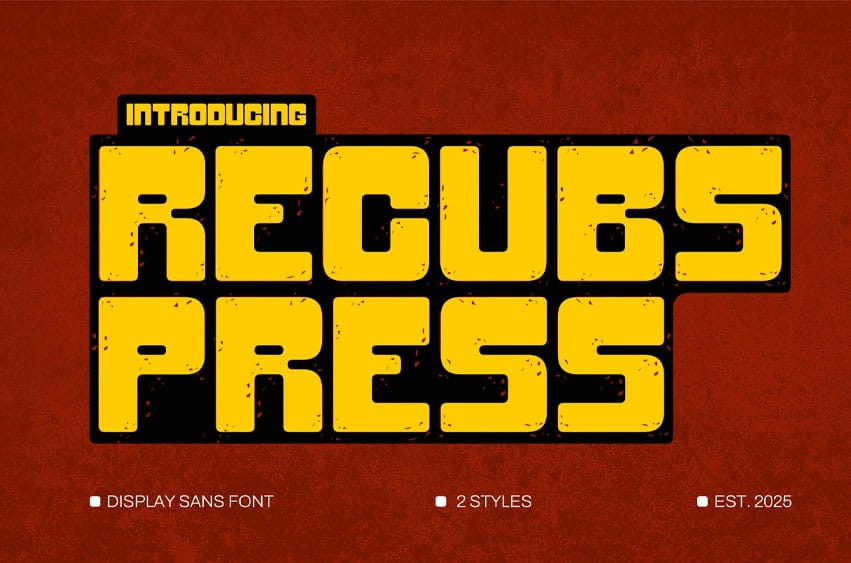
Recubs Press Font Every character in Recubs Press is founded on robust geometric structures, featuring squared terminals and consistent stroke widths that ensure legibility at any size. The Regular style balances a friendly mid-weight presence with gentle distressing, evoking the charm of handcrafted prints without compromising clarity. Block amplifies the grit and weight, imposing a bold statement perfect for logos, posters, and large-scale display.
Recubs Press excels across diverse applications, from vintage-inspired packaging and artisanal branding to modern editorial layouts and eye-catching posters. Its complementary Regular and Block variants work in harmony to establish a clear hierarchy and visual rhythm, guiding readers through headlines, subheads, and captions. The family’s innate texture and expressiveness give projects a handcrafted, yet contemporary typographic voice.